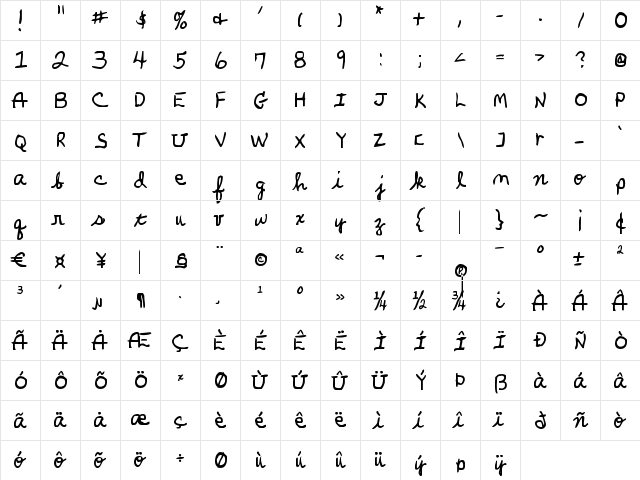
Parker's Hand Bold Bold Font Preview
Design Context for Parker's Hand Bold Typeface
Parker's Hand Bold flows with the natural rhythm of handwritten lettering, making it ideal for designs that call for warmth and personal expression. The heavy weight commands attention and anchors typographic hierarchies.
Font Pairing: Combine Parker's Hand Bold with a simple geometric sans for maximum contrast — the tension between flowing curves and clean structure is a classic typographic pairing.
Pro Tip: Pair Parker's Hand Bold with a clean sans-serif for supporting text. The contrast between fluid script and geometric structure creates an elegant typographic hierarchy.